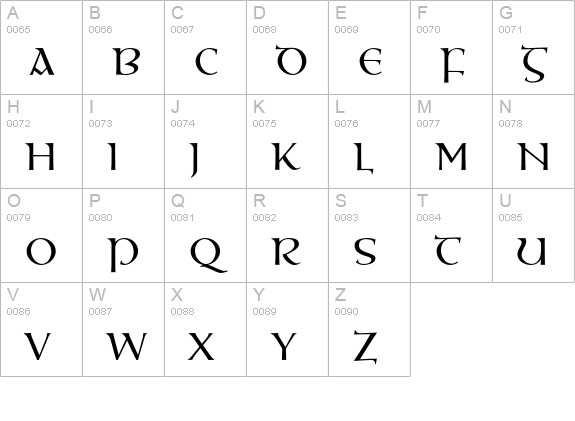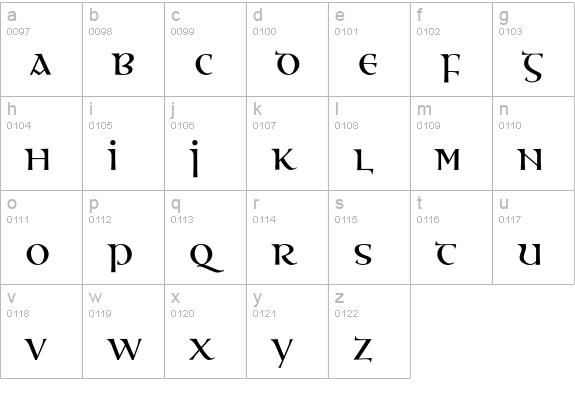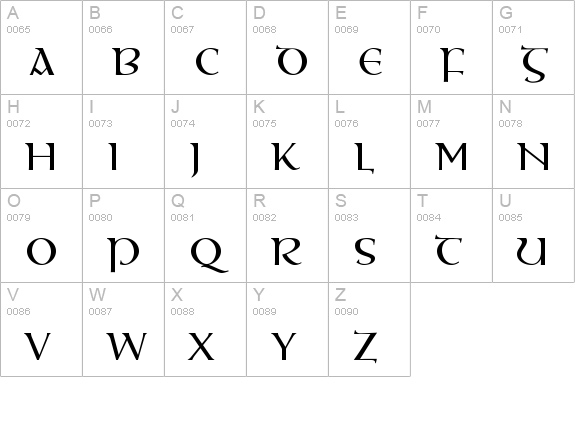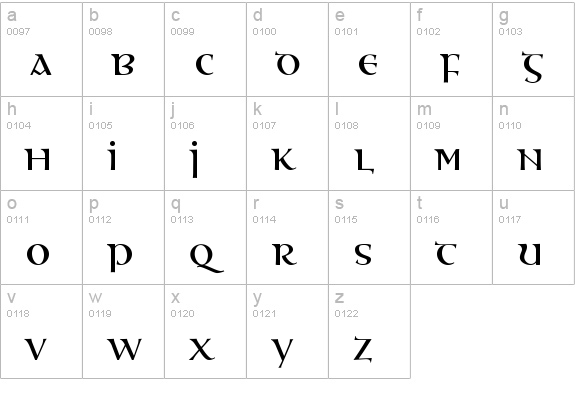
OssianEF-RegularSC Font Details
OssianEF-RegularSC font is a stylish and versatile typeface that exudes elegance and sophistication. With its clean lines and modern design, this font is perfect for a wide range of projects, from branding to editorial design. The unique lowercase letters add a touch of flair and individuality to any text, making it stand out from the crowd. One of the best things about OssianEF-RegularSC font is that it is completely free to download. You can easily access this beautiful font at FontsMarket.com, where you can find a wide selection of high-quality fonts for all your design needs. Don't miss out on the opportunity to enhance your projects with this stunning typeface that combines classic charm with contemporary style. Download OssianEF-RegularSC font today and elevate your designs to the next level.